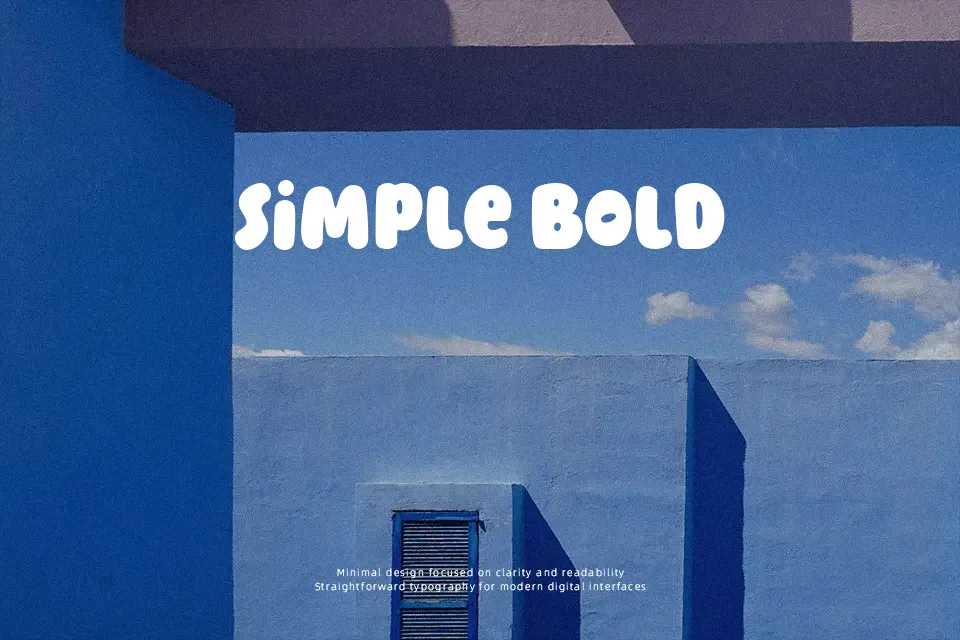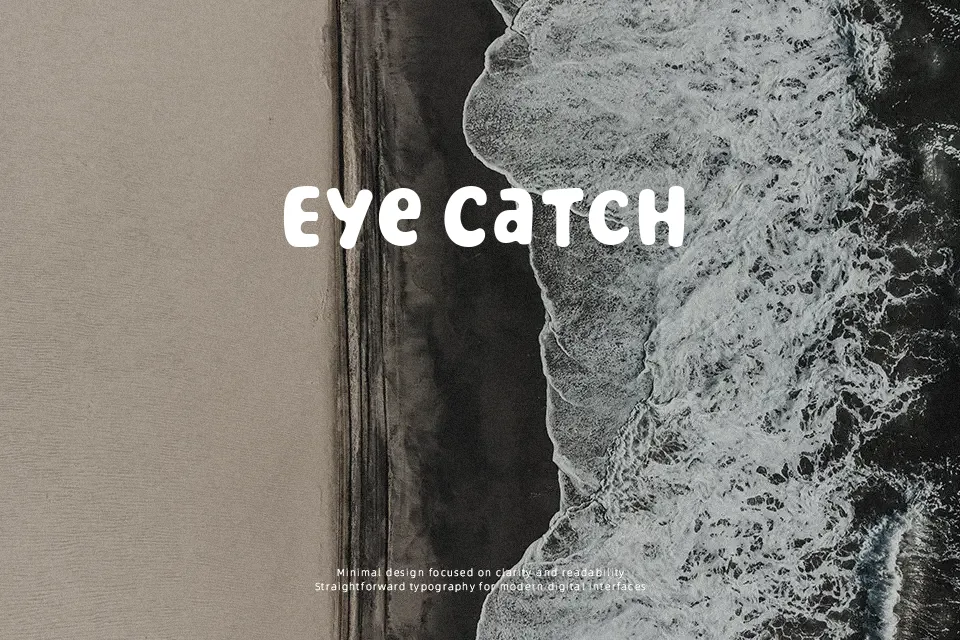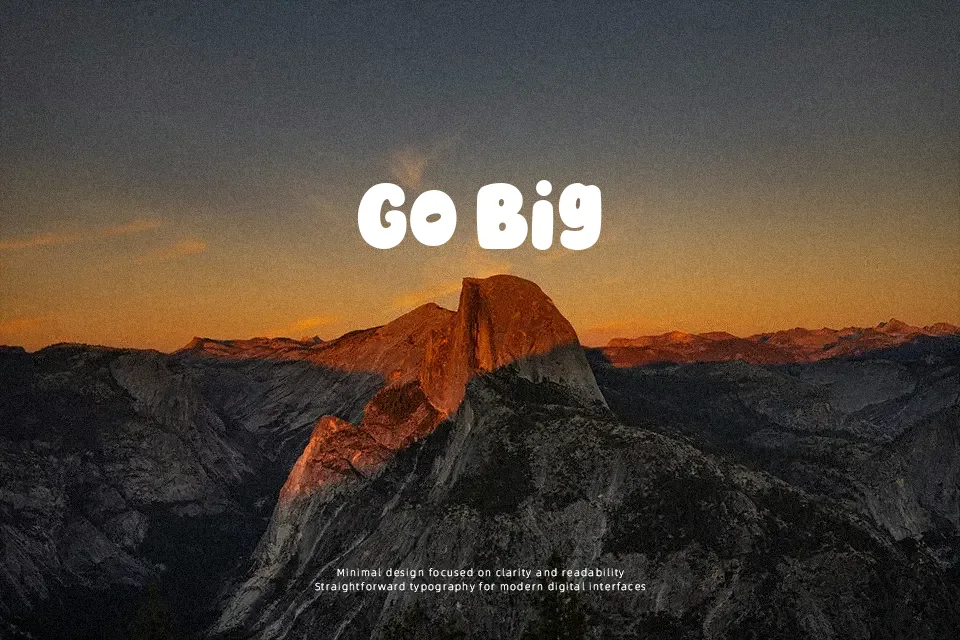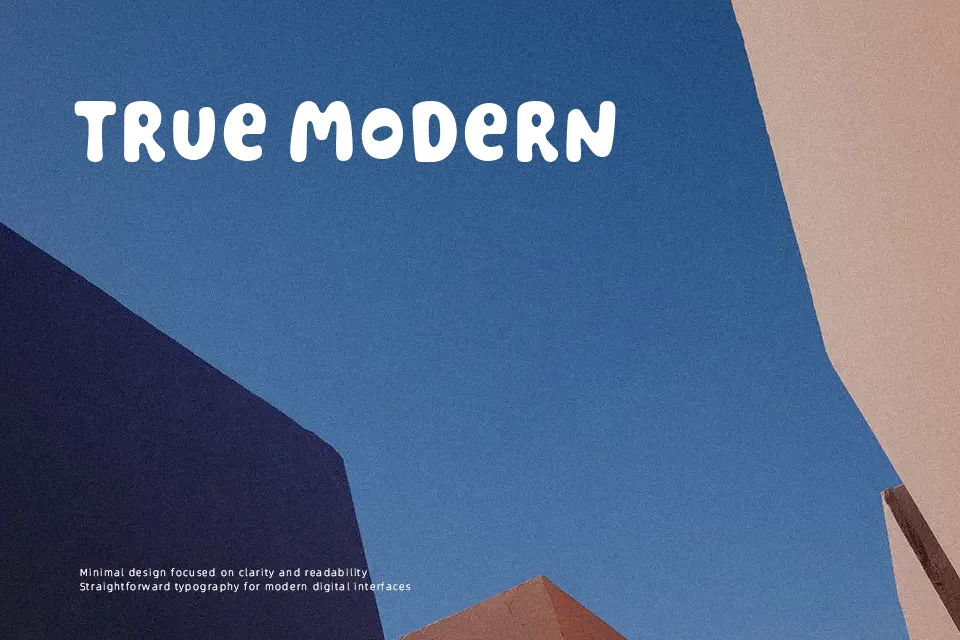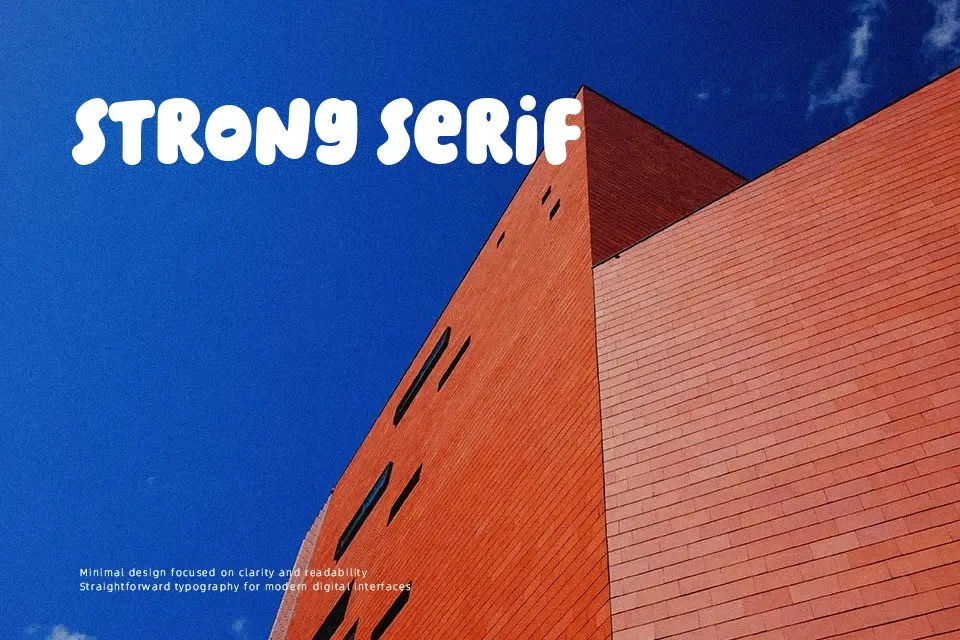
Bubble Garden Font
Designed by Four Lines
Bubble Garden Font features a chunky, inflated structure characterized by thick, balloon-like strokes and tight letter spacing. The overall style impression is distinctly casual, bringing a retro 1970s groovy aesthetic mixed with modern cheerfulness. It stands out when designing vibrant snack packaging, creating attention-grabbing YouTube thumbnails, or developing lively branding for an indoor playground. The heavy weight and rounded forms guarantee high visibility for large headlines. However, this heavy, decorative structure means it struggles significantly with readability at smaller sizes, making it entirely unsuitable for long body text, formal editorial layouts, or serious corporate reports. Compared to standard sans-serifs, its extreme thickness requires generous canvas space to breathe properly.
– Vibrant children’s toy packaging and book covers
– Catchy headlines for casual social media graphics
– Groovy retro-themed event posters
– Small body text in lengthy editorial articles
– Formal corporate branding or legal documents
– Interfaces requiring high readability at small scales
Perfect for branding, headline, and kids, with a bold and cartoon style.